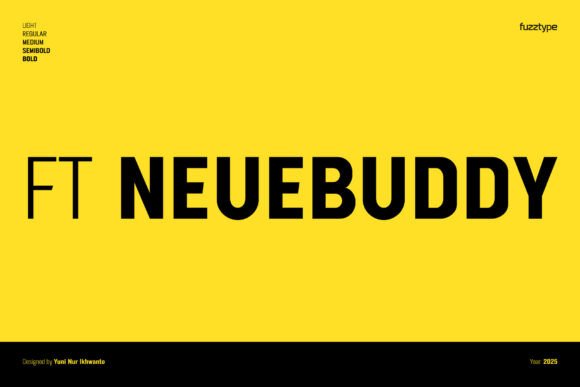
Introducing FT Neue Buddy Font: A Perfect Blend of Modern Aesthetics and Friendly Appeal
In the world of typography, finding the right font that balances modernity with approachability can be a daunting task. However, FT Neue Buddy font has emerged as a game-changer, offering a unique blend of geometric sans-serif elegance and warm, friendly appeal. This versatile typeface is designed to cater to a wide range of design needs, making it an excellent choice for both digital and print projects.
Design Characteristics of FT Neue Buddy
FT Neue Buddy boasts a range of design characteristics that set it apart from other sans-serif typefaces. Its clean letterforms, consistent stroke widths, and subtle curves work in harmony to deliver a strong yet approachable visual tone. The font’s rounded terminals and playful shapes add a touch of character, preventing it from feeling too rigid or formal.
One of the standout features of FT Neue Buddy is its ability to convey a sense of professionalism and modernity without sacrificing warmth and friendliness. This makes it an ideal choice for brands looking to establish a contemporary and approachable visual identity.
Weight Variations and Versatility
FT Neue Buddy is available in a full range of weights, from Light, Regular, Medium, Semibold, to Bold. This extensive range of weights ensures that the font can be used across a variety of applications, from large titles and impactful headlines to clear, readable body text.
The versatility of FT Neue Buddy makes it a reliable choice for designers who need a font that can perform well in different contexts. Whether you’re working on a digital project, such as a website or mobile app, or a print project, like a brochure or poster, FT Neue Buddy is up to the task.
Applications of FT Neue Buddy
FT Neue Buddy’s versatility is one of its most significant advantages. Its range of weights and design characteristics make it suitable for a wide range of applications, including:
- Digital Design: FT Neue Buddy is perfect for digital projects, such as websites, mobile apps, and social media graphics. Its clean and legible design ensures that it remains readable on a variety of devices and screen sizes.
- Print Design: The font’s excellent print quality makes it an excellent choice for print projects, such as brochures, posters, and business cards.
- Headlines and Titles: FT Neue Buddy’s bold weights are ideal for creating attention-grabbing headlines and titles that demand attention.
- Body Text: The font’s regular and light weights make it suitable for use as body text, providing a clear and readable reading experience.
Benefits of Using FT Neue Buddy
FT Neue Buddy offers a range of benefits that make it an attractive choice for designers and brands. Some of the key advantages of using FT Neue Buddy include:
- Unique Visual Identity: FT Neue Buddy’s distinctive design characteristics help to create a unique visual identity that sets your brand apart from others.
- Improved Readability: The font’s clean and legible design ensures that your message is communicated clearly and effectively.
- Versatility: FT Neue Buddy’s range of weights and design characteristics make it suitable for a wide range of applications.
- Professional and Friendly Appeal: The font’s modern aesthetics and warm, friendly appeal make it an excellent choice for brands looking to establish a professional and approachable visual identity.
FT Neue Buddy font is a game-changer in the world of typography. Its unique blend of modern aesthetics and friendly appeal makes it an excellent choice for brands looking to establish a contemporary and approachable visual identity. With its range of weights, versatility, and excellent readability, FT Neue Buddy is a reliable choice for both digital and print design projects.
Whether you’re a designer looking for a font that can perform well across a range of applications or a brand seeking to establish a unique visual identity, FT Neue Buddy is definitely worth considering.
| Font Style: | Geometric Sans-Serif |
| Design Characteristics: | Clean letterforms, consistent stroke widths, subtle curves, rounded terminals, and playful shapes |